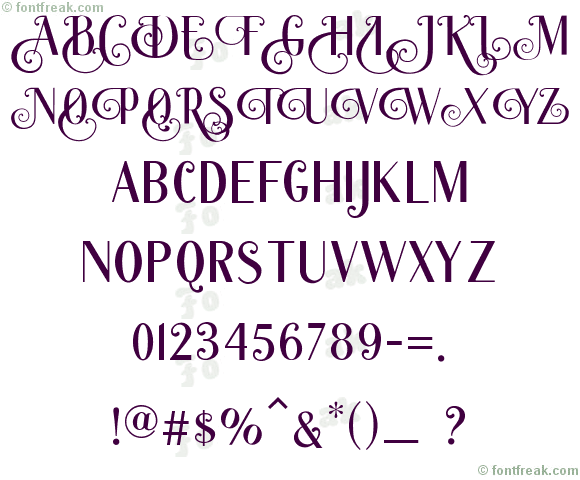
Crows Caps Caps
About Crows Caps Caps
Crows Caps Caps is a stunning display font designed by Burhan Afif, categorized as a decorative typeface. This unique font features an elegant blend of playful curves and bold strokes, making it stand out in any design context. The stroke weight is consistent yet dynamic, providing a sense of movement and personality. Its high contrast between thick and thin lines adds visual interest, while the generous spacing between characters ensures readability and allows the font to breathe in various applications. Decorative elements, such as whimsical curls and flourishes, bring a charming character to the overall design.
This font is particularly well-suited for a variety of creative uses. It shines in wedding invitations, where its romantic flair can set the perfect tone for a special day. Movie posters can benefit from its eye-catching design, drawing attention and creating intrigue among potential viewers. Restaurant menus will also find a great match in Crows Caps Caps, as its playful nature can enhance the dining experience, making the menu feel inviting and unique. Additionally, it is an excellent choice for branding projects, especially for small business owners looking to create a memorable visual identity.
What truly sets Crows Caps Caps apart is its ability to combine whimsy and elegance, making it a delightful choice for anyone seeking to add a distinctive flair to their designs. Its versatility ensures that it can be effectively utilized across a variety of mediums, making it a noteworthy addition to any designer's toolkit.